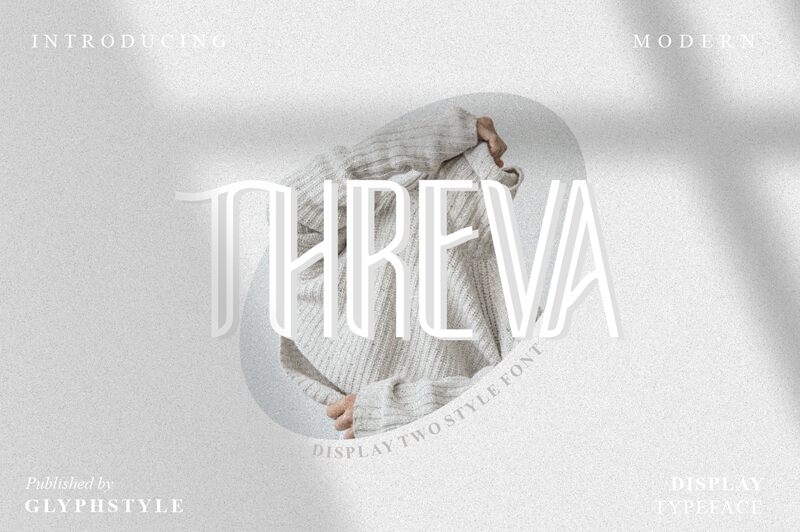
THREVA is a stunning display font designed by GlyphStyle 2021. Its semi-light weight and extra-condensed width make it perfect for projects that require a sleek and modern touch. The outlined style adds a unique flair to any project, making it stand out from the crowd. THREVA is suitable for various projects such as logos, branding materials, posters, and even product packaging designs. With its versatile style, you can play around with its outline thickness to create different effects that suit your needs. Let THREVA elevate your design game and captivate your audience with its bold and sophisticated look!